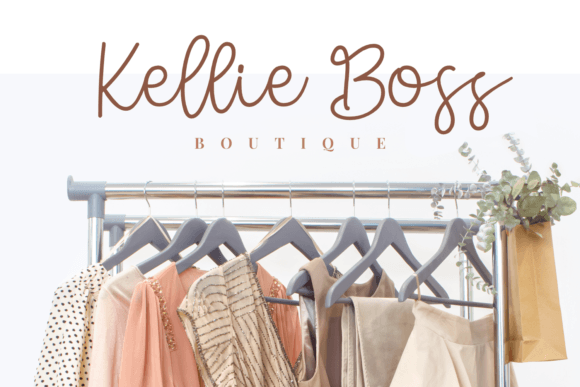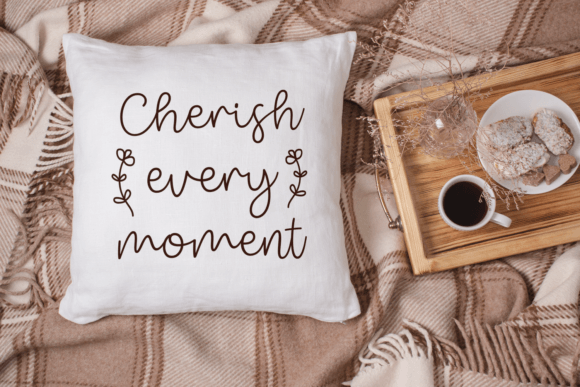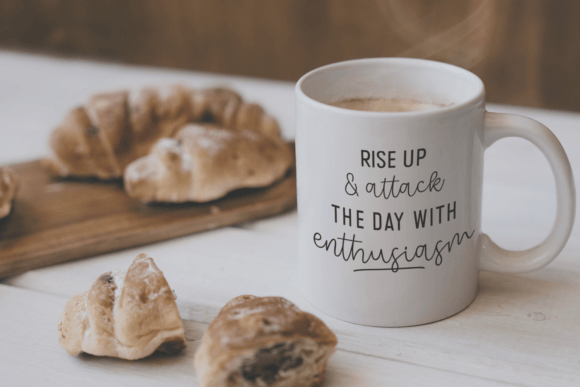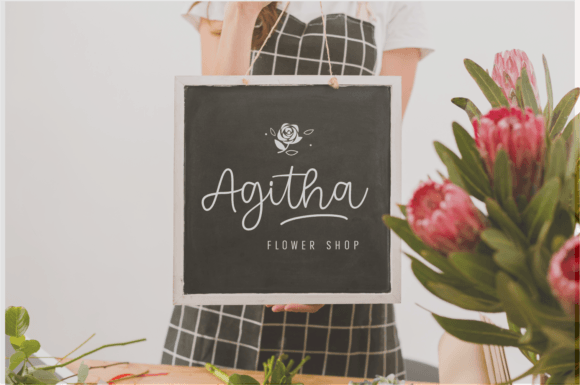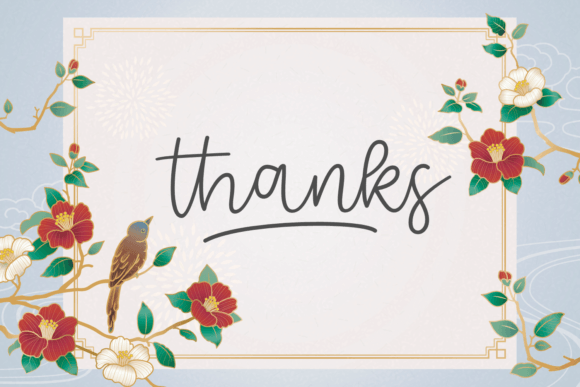
Discover the Charm of Emilla Font: A Sweet and Cursive Handwritten Delight
Are you on the hunt for a font that exudes sweetness, elegance, and romance? Look no further than Emilla Font, a beautiful cursive handwritten font that is sure to capture your heart. With its gentle and flowing curves, Emilla is the perfect addition to a wide range of design projects, from branding and logos to wedding materials, greeting cards, and more.
The Versatility of Emilla Font
One of the standout features of Emilla Font is its incredible versatility. This lovely font can be used in a variety of design ideas, making it an excellent choice for designers and crafters who want to add a touch of sophistication and whimsy to their work. Whether you’re creating a logo, a wedding invitation, or a marketing promotion, Emilla Font is sure to make your project look gorgeous and eye-catching.
Here are just a few examples of the many design projects where Emilla Font can shine:
- Branding: Use Emilla Font to create a custom logo or add a touch of elegance to your business cards and letterhead.
- Wedding: Make your wedding stationery, invitations, and decorations truly special with Emilla Font’s romantic and whimsical charm.
- Greeting Cards: Add a personal touch to your greeting cards and make them stand out with Emilla Font’s beautiful cursive script.
- Fashion: Use Emilla Font to create stunning lookbooks, fashion magazines, or social media graphics that showcase your style and flair.
- Marketing Promotion: Elevate your marketing materials, such as brochures, flyers, and posters, with Emilla Font’s sophisticated and elegant feel.
The Benefits of Emilla Font
So, what makes Emilla Font so special? Here are just a few benefits that make this font a must-have for designers and crafters:
- PUA Encoded: Emilla Font is PUA encoded, which means you can easily access all of the amazing glyphs and ligatures with ease. This makes it simple to customize your text and add unique touches to your designs.
- Elegant and Casual: Emilla Font strikes the perfect balance between elegance and casual charm. It’s perfect for designers who want to create sophisticated designs that still feel approachable and friendly.
- Handwritten Charm: With its beautiful cursive script, Emilla Font adds a touch of handwritten charm to any design project. This makes it perfect for designers who want to create unique and personalized designs.
Tips for Using Emilla Font
To get the most out of Emilla Font, here are a few tips to keep in mind:
- Experiment with Sizes: Emilla Font looks beautiful in a range of sizes, from large headings to smaller body text. Experiment with different sizes to find the perfect fit for your design.
- Play with Colors: Emilla Font is versatile enough to work with a wide range of colors. Try pairing it with bold and bright colors for a fun and playful look, or with more muted tones for a sophisticated feel.
- Mix and Match: Don’t be afraid to mix and match Emilla Font with other fonts to create a unique and eye-catching design. Its elegant and cursive script pairs beautifully with a range of other fonts.
In conclusion, Emilla Font is a sweet and cursive handwritten font that is sure to capture your heart. With its gentle and flowing curves, elegant and casual charm, and PUA encoding, it’s the perfect addition to a wide range of design projects. Whether you’re a designer, crafter, or DIY enthusiast, Emilla Font is a must-have for anyone looking to add a touch of sophistication and whimsy to their work.